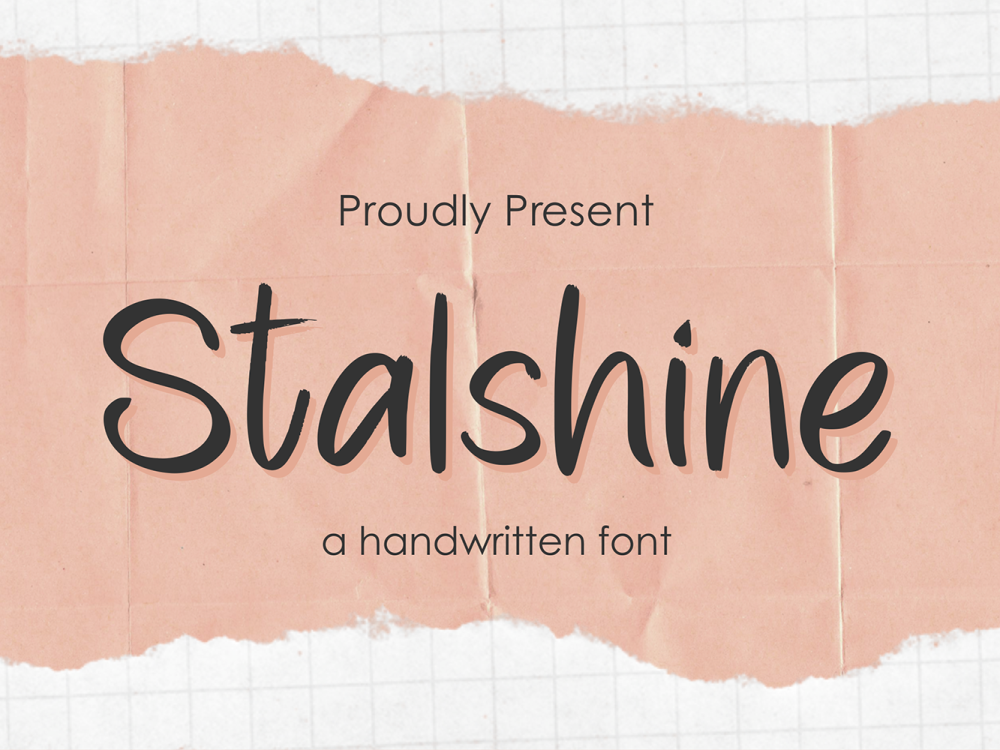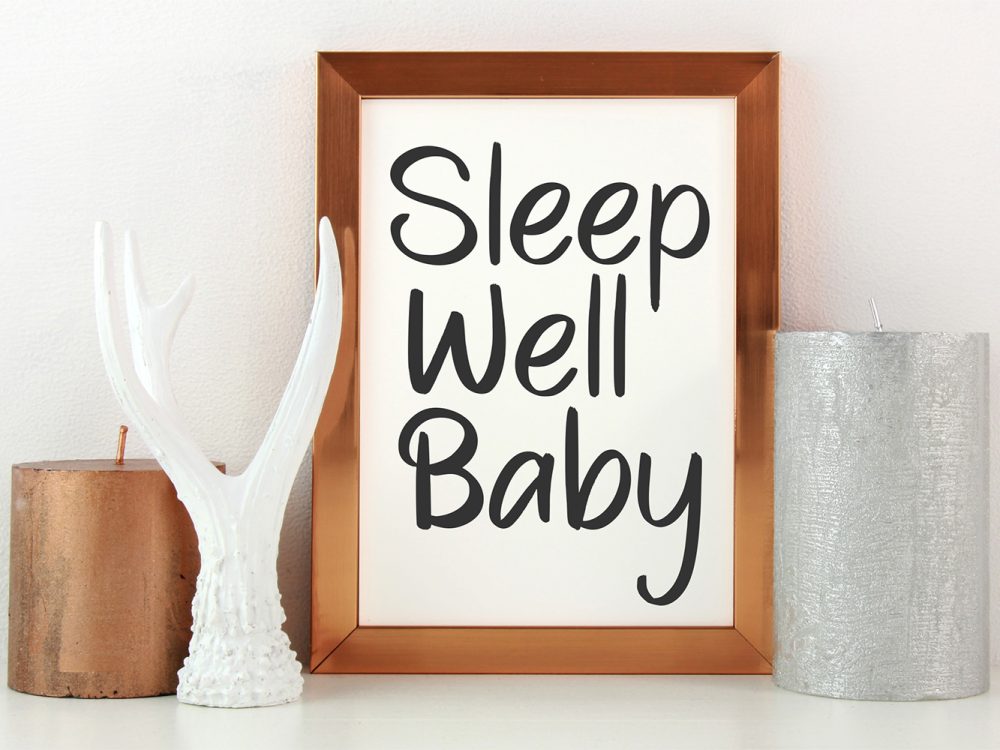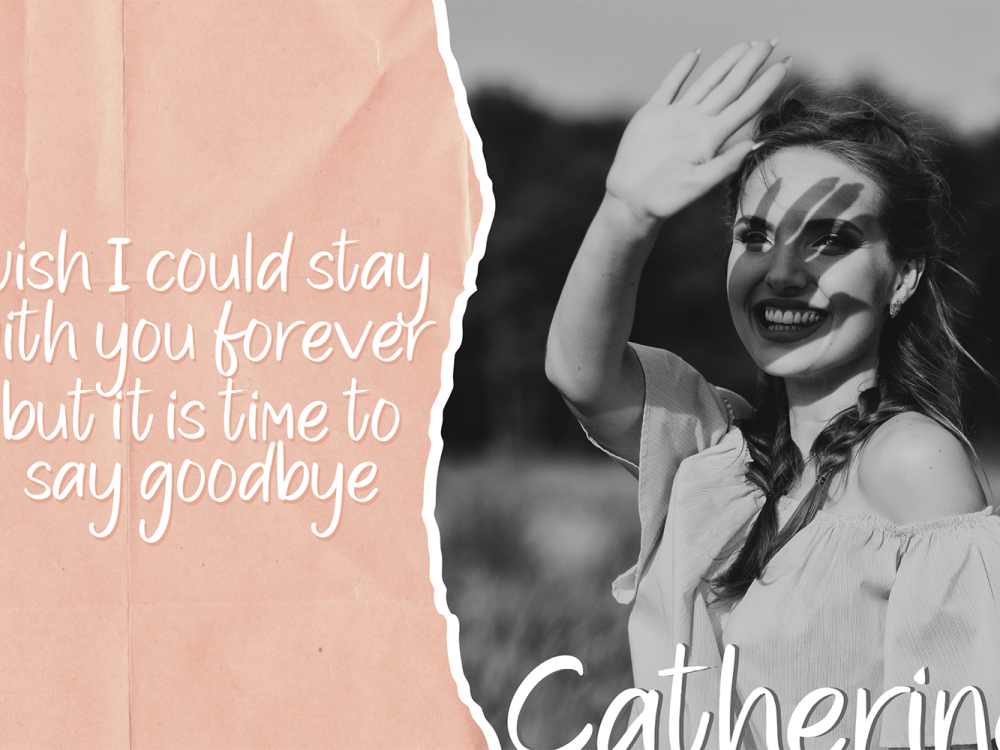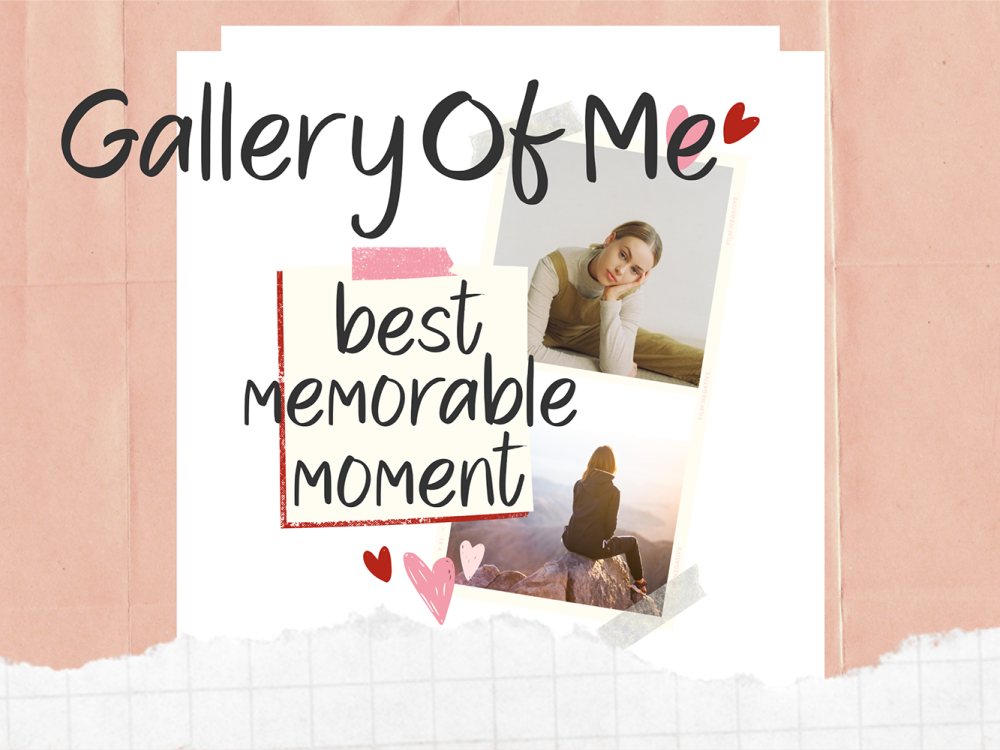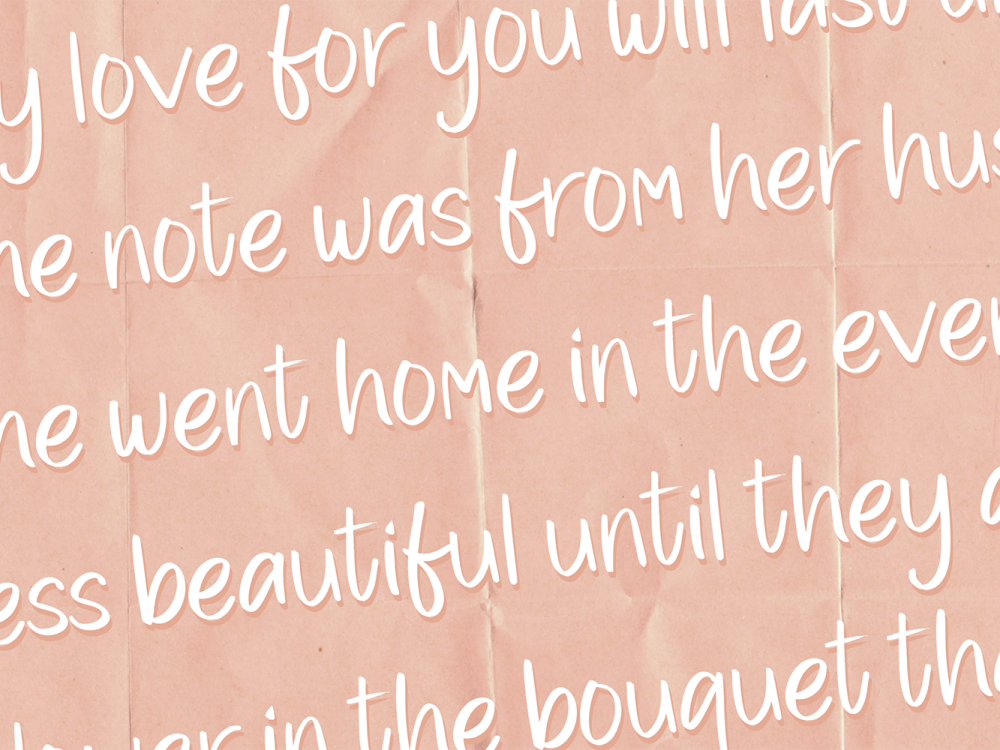
Stalshine Free Font
Introducing Stalshine Free Font, an enchanting handwritten font that’s both versatile and captivating. From greeting cards to impactful headlines, this script font suits a wide spectrum of applications. Infuse a touch of romance into your next project with the undeniable charm of Stalshine. If you like it don’t forget to check out the full version.